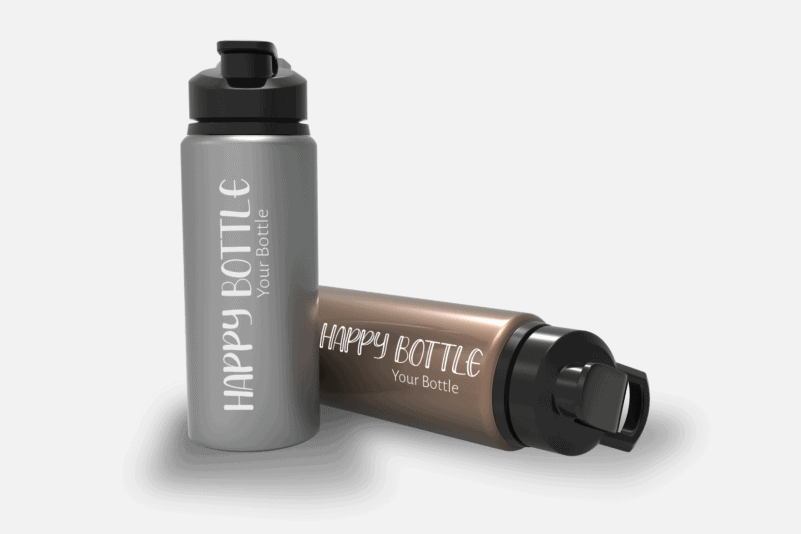
Radens Jockie Font
Radens Jockie Font is a stunning handwritten font. Has two styles, regular and hollow. This charming font will turn any creative idea into a standout. Get creative with childlike fun, and use it to brighten up any craft project! which is cute and sweet.